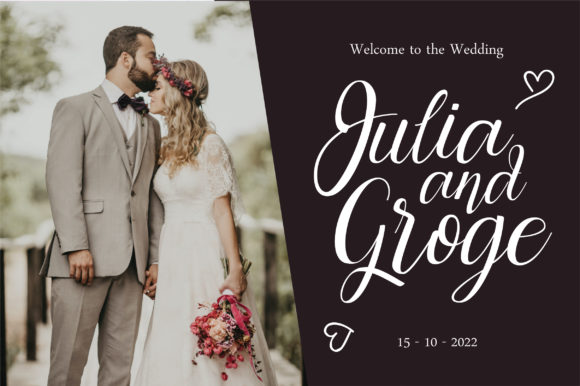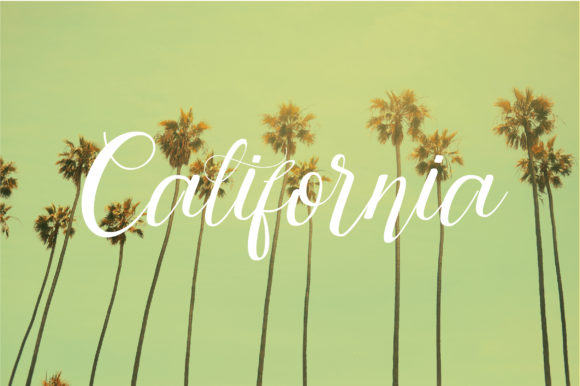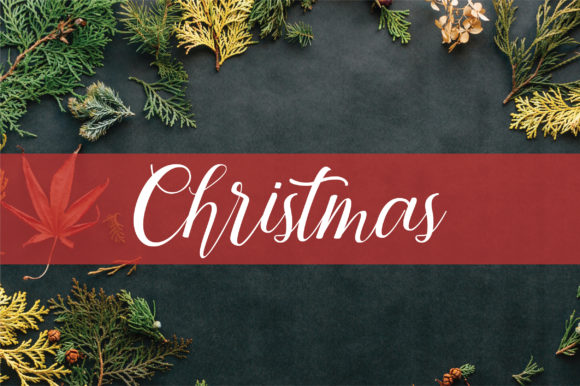
Introducing Contento Font: A Lovely, Round Lettered Handwritten Font
Are you tired of using the same old fonts for your design projects? Look no further than Contento Font, a beautiful, round lettered handwritten font that’s perfect for adding a personal touch to your work. Designed with the help of a brush pen, Contento Font has a timeless feel that makes it adept to both formal and non-formal projects.
What Makes Contento Font Special?
Contento Font is a unique and elegant font that’s sure to make your designs stand out. Its round, handwritten letters have a warm and inviting feel that’s perfect for creating a sense of comfort and approachability. Whether you’re designing a logo, a brochure, or a website, Contento Font is a great choice for adding a touch of personality to your work.
The Design Process
Contento Font was designed with the help of a brush pen, which gives it a distinctive, hand-crafted feel. The font’s creator carefully crafted each letter to ensure that it was perfect for use in a variety of design projects. The result is a font that’s both elegant and approachable, with a timeless feel that’s sure to endure.
Uses for Contento Font
Contento Font is a versatile font that can be used in a wide range of design projects. Here are a few ideas to get you started:
• Logos and branding: Contento Font is a great choice for creating a logo or brand identity that’s both elegant and approachable.
• Brochures and flyers: Add a personal touch to your marketing materials with Contento Font.
• Websites: Use Contento Font to create a warm and inviting atmosphere on your website.
• Stationery: Add a touch of elegance to your stationery with Contento Font.
• Crafting and DIY projects: Contento Font is also perfect for crafters and DIY enthusiasts who want to add a personal touch to their projects.
Why Choose Contento Font?
There are many reasons why Contento Font is a great choice for designers and crafters. Here are a few:
• Unique and elegant: Contento Font is a one-of-a-kind font that’s sure to make your designs stand out.
• Timeless feel: Contento Font has a timeless feel that’s perfect for both formal and non-formal projects.
• Easy to read: Contento Font is clear and easy to read, making it perfect for use in a variety of design projects.
• Versatile: Contento Font can be used in a wide range of design projects, from logos and branding to websites and stationery.
Tips for Using Contento Font
Here are a few tips for getting the most out of Contento Font:
• Use it sparingly: Contento Font is a beautiful font, but it can be overwhelming if used too much. Use it sparingly to add a touch of elegance to your designs.
• Pair it with other fonts: Contento Font pairs well with a variety of other fonts. Experiment with different pairings to find the one that works best for your project.
• Adjust the size: Contento Font can be used at a variety of sizes, from large headings to small body text. Experiment with different sizes to find the one that works best for your project.
Contento Font is a beautiful, round lettered handwritten font that’s perfect for adding a personal touch to your design projects. Its timeless feel makes it adept to both formal and non-formal projects, and its versatility makes it a great choice for a wide range of design applications. Whether you’re a designer or a crafter, Contento Font is a great choice for anyone looking to add a touch of elegance to their work.